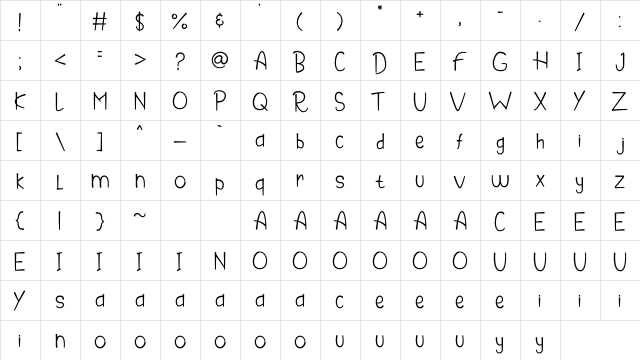
Thanksgiving Cooker Regular
Design Context for Thanksgiving Cooker Typeface
Thanksgiving Cooker takes a measured approach to typography — its balanced proportions and neutral character make it a reliable workhorse for both digital and print work.